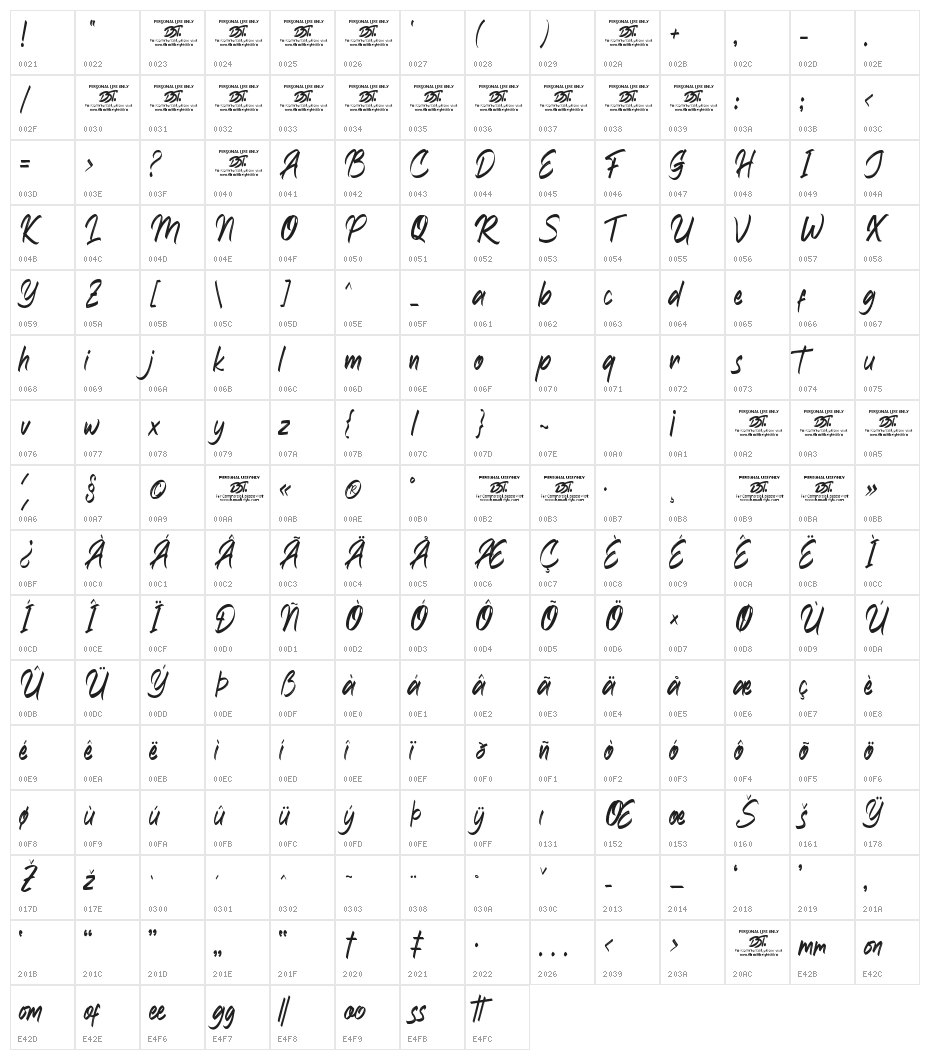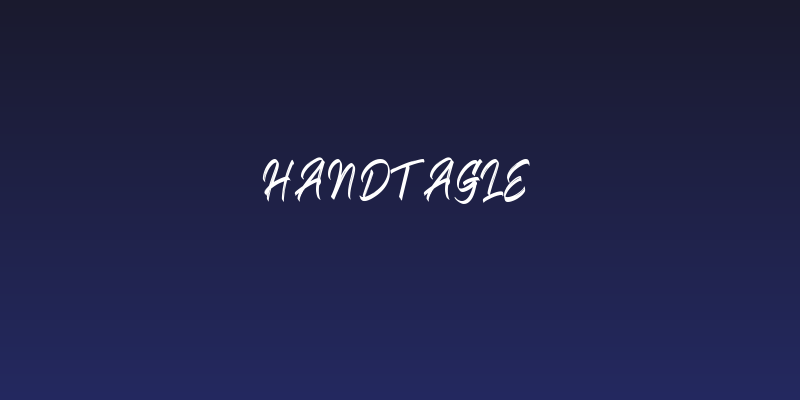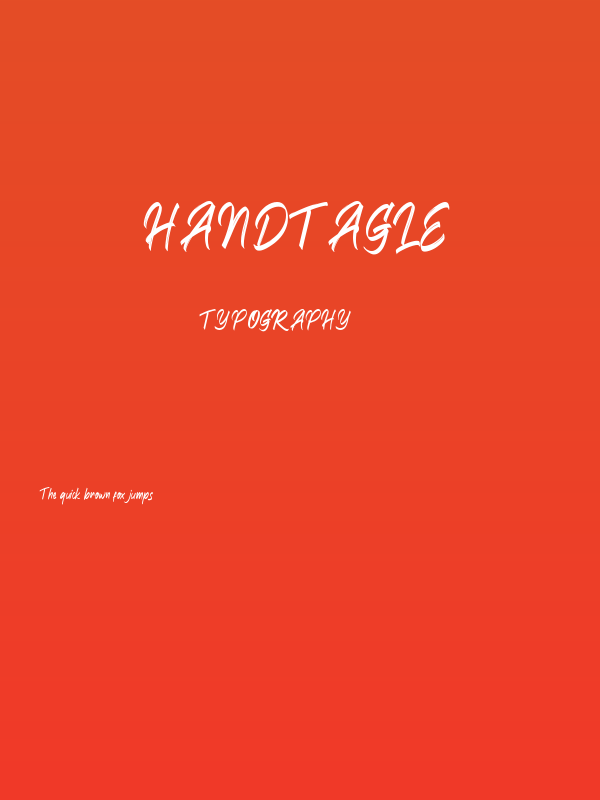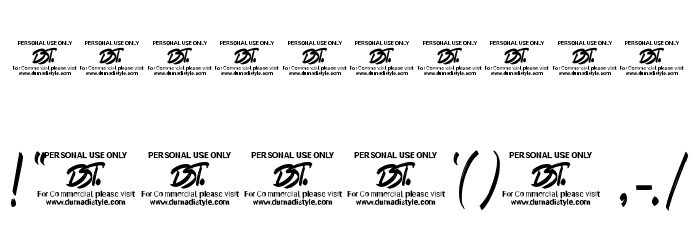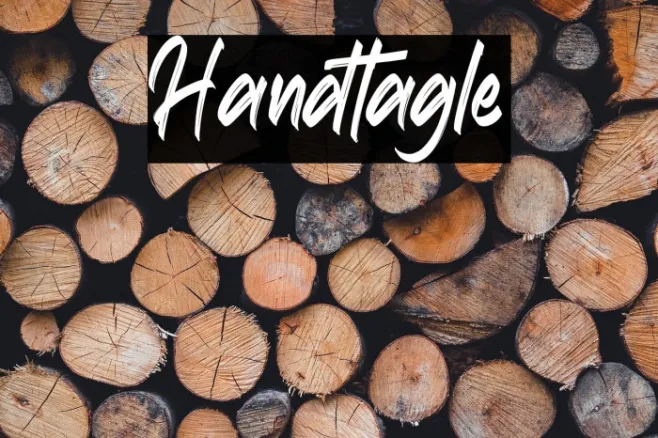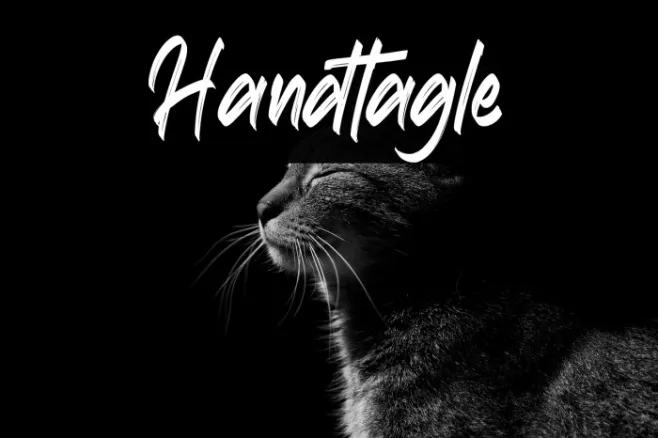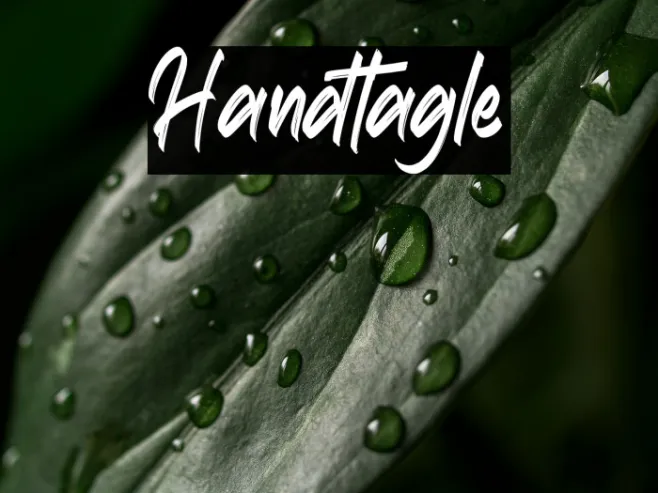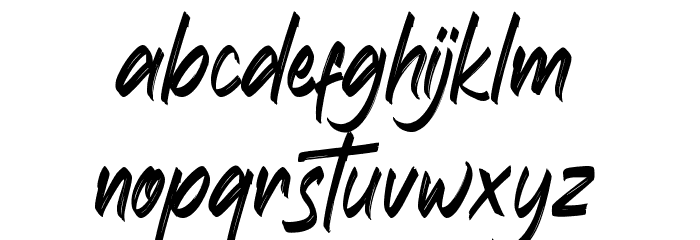
Handtagle Font
Handtagle Description
This font exhibits a dynamic and expressive handwritten style, characterized by its fluid and energetic strokes. The uppercase letters are bold and slightly slanted, giving a sense of movement and flair. The lowercase characters maintain a consistent flow, with some letters featuring distinctive loops and curves that enhance the overall aesthetic. The numbers and special characters are crafted with the same attention to detail, ensuring uniformity across the typeface. This font's brush-like appearance makes it ideal for projects that require a personal touch or an artistic vibe.